It’s subtle, but if you look hard enough, the difference is there: in the curve at the base of the lowercase L’s, the serifs on the uppercase I’s, and the slash through the zeros. Twitter has made some alterations to its font—specifically in site user’s handles. The change was first reported on by the Verge, and first noticed by Twitter users all over.
Endless variations of the question “Did Twitter change its font?,” popped up in posts on the platform Thursday. And the answer is apparently “yes.” The most noticeable changes seem confined to peoples’ handles (a.k.a. the @’s), where small tweaks could be part of an effort to minimize fraudulent accounts. As a result, many users expressed frustration that identifying handles no longer looked as they’d intended.
All of the visible adjustments Gizmodo noted were related to common lookalike letters. Instead of just a straight line, like they used to be, lowercase L’s now have a small tail, distinguishing them from I’s—which have gotten their own makeover with top and bottom serifs.
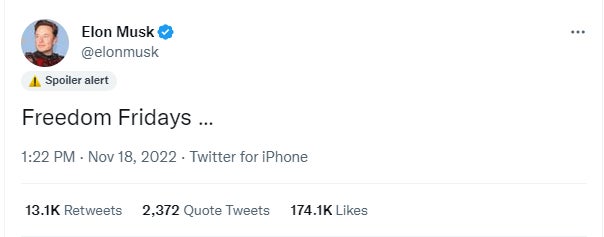
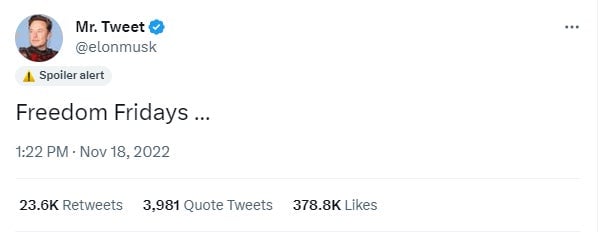
Molly White, of Web3isGoingGreat also noted the change, and speculated that it could be an attempt to help minimize account impersonators. The adjusted L’s were visible in White’s handle, along with a slashed zero. For easy comparison sake, the font change appears to have not yet made it to Gizmodo’s embedded tweet display, so the difference is visible below.
looks like twitter is making some attempts to cut down on impersonation accounts by using a new font for twitter handles. note the slashed 0 and the tail on the l. pic.twitter.com/NZRQxjS3XJ
— Molly White (@molly0xFFF) January 26, 2023
Impersonator accounts have been a persistent problem on the platform since Elon Musk’s takeover, and the subsequent rollercoaster ride of changes to Twitter’s verification system.
“I’m not sure a font change, which still requires people to closely study the twitter handle, will make much of a difference, but hey it probably won’t make anything worse,” White wrote as part of her thread on the adjustments.
Although, last time Twitter changed its font, it did make things worse for lots of users. People reported headaches and eyestrain trying to read the proprietary “Chirp” font when it was first introduced in August 2021. At least this design change seems a little more confined. Especially since the site probably doesn’t have all that many staff left to respond to user complaints.